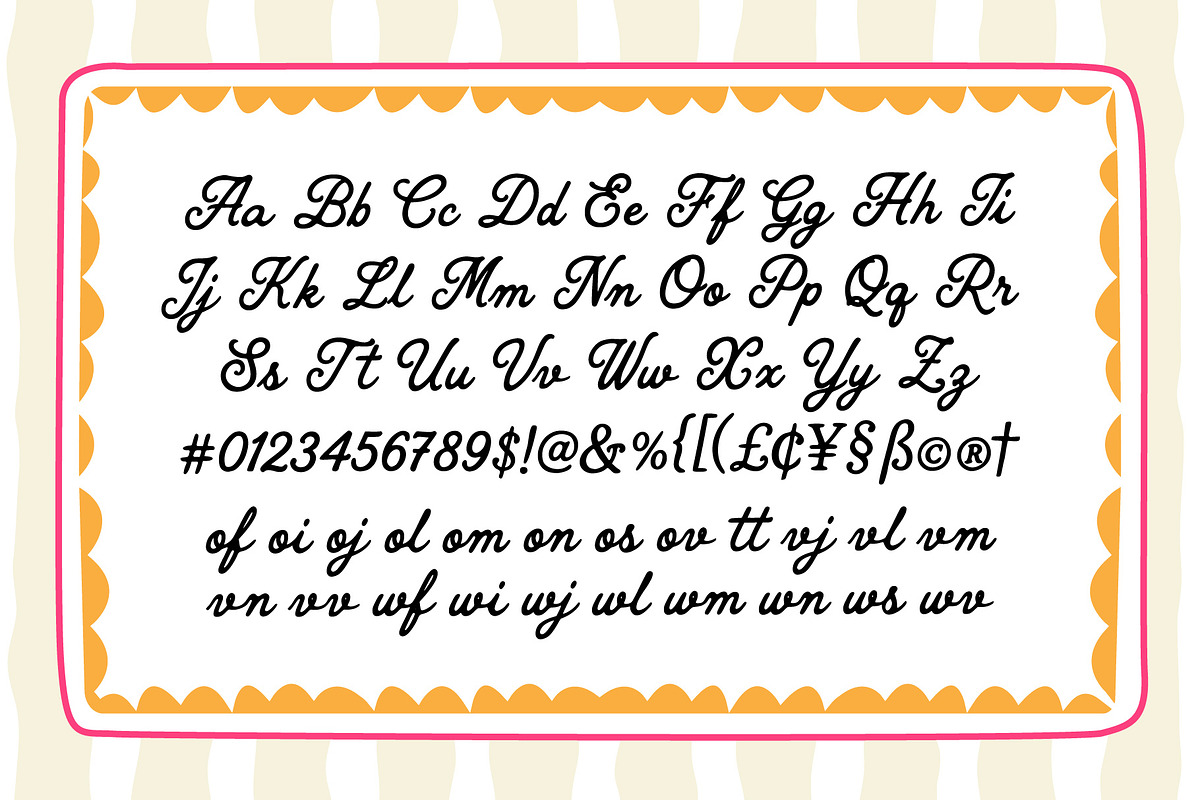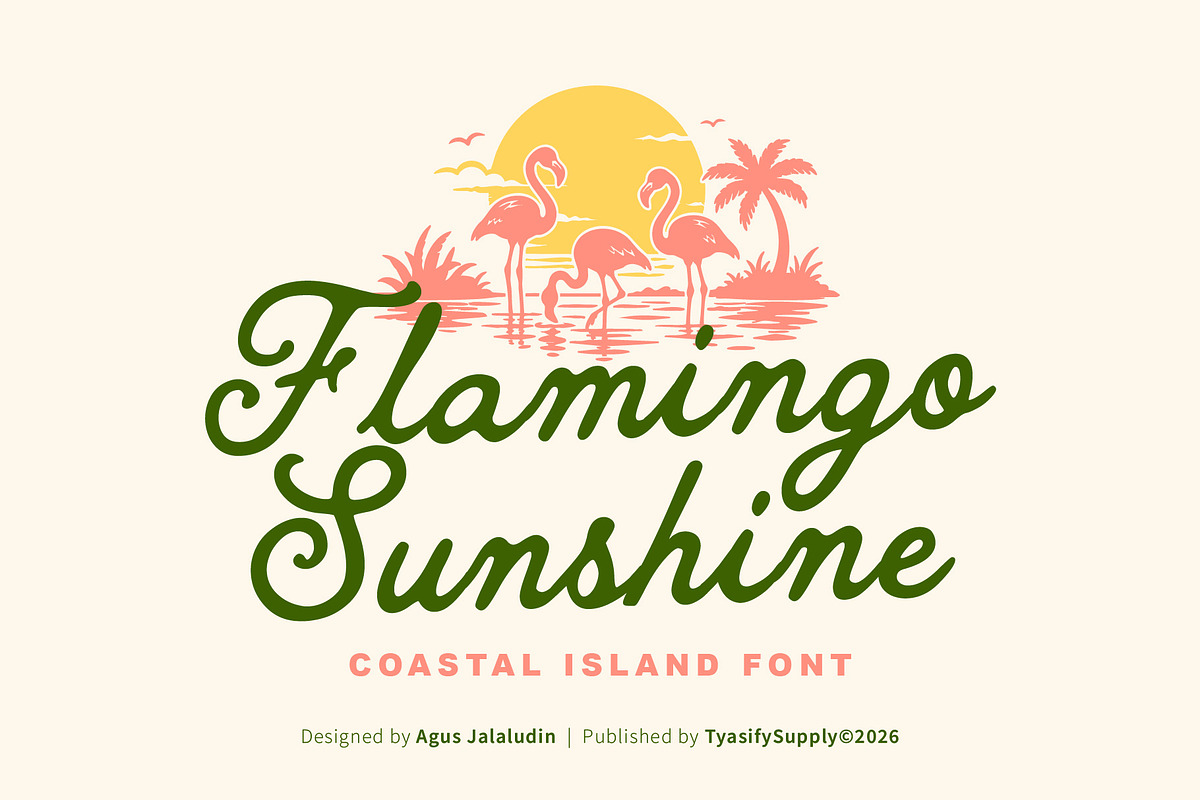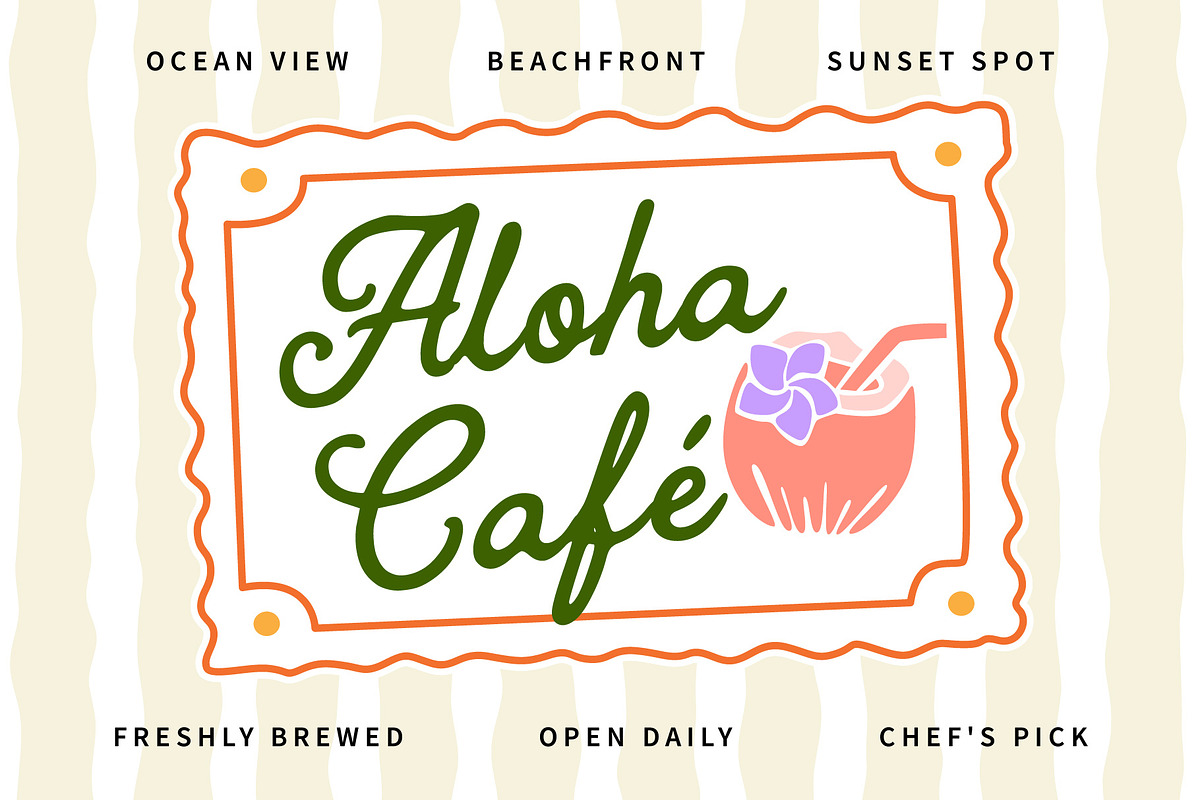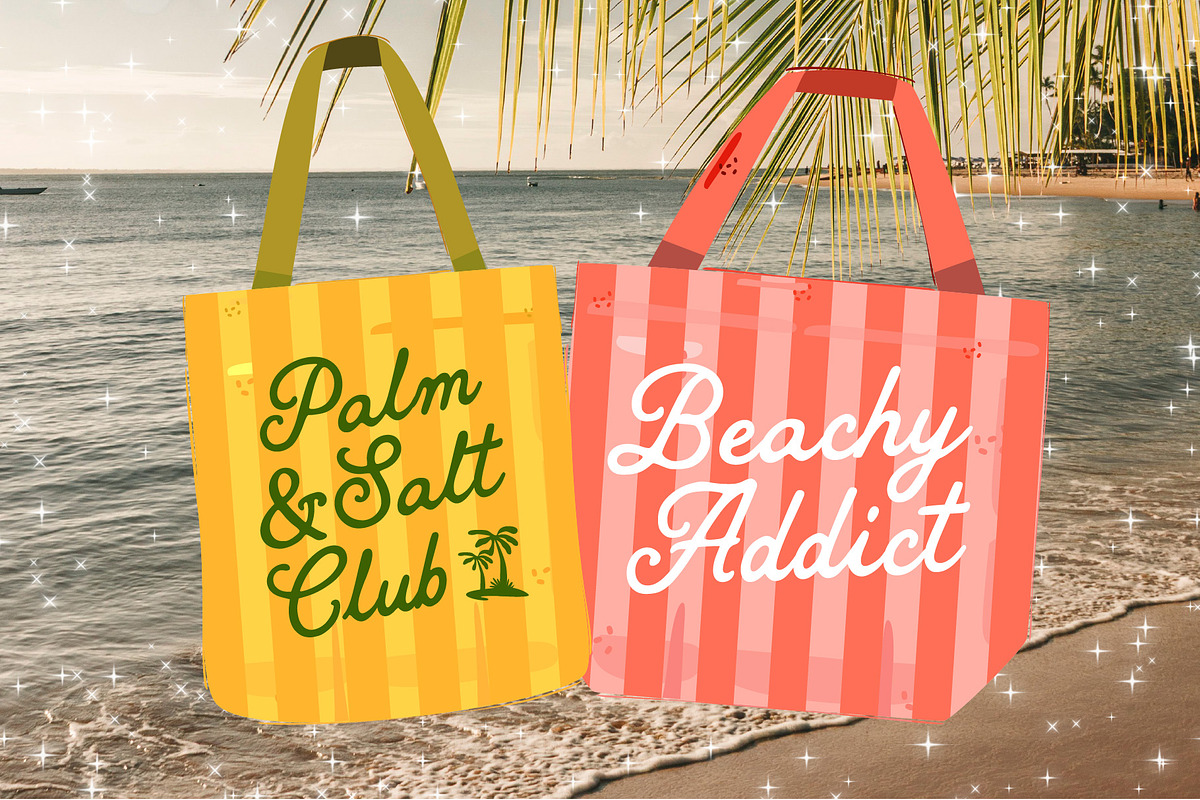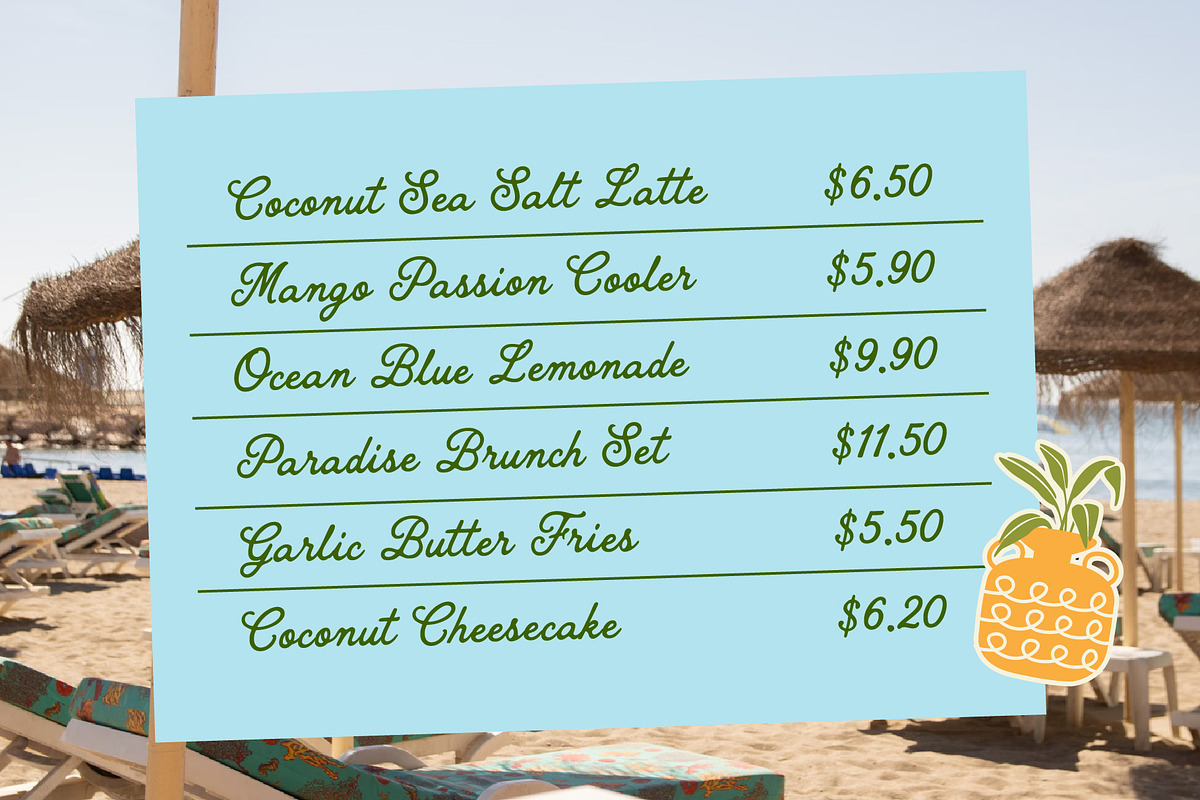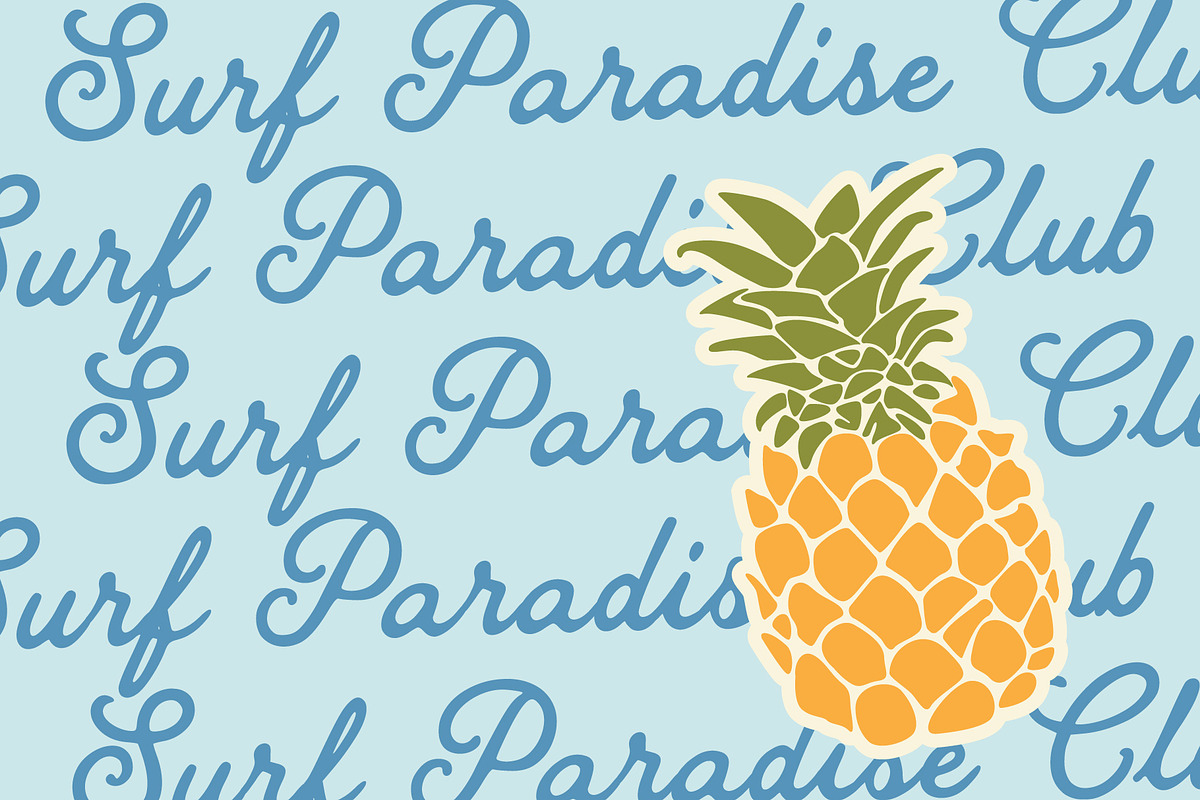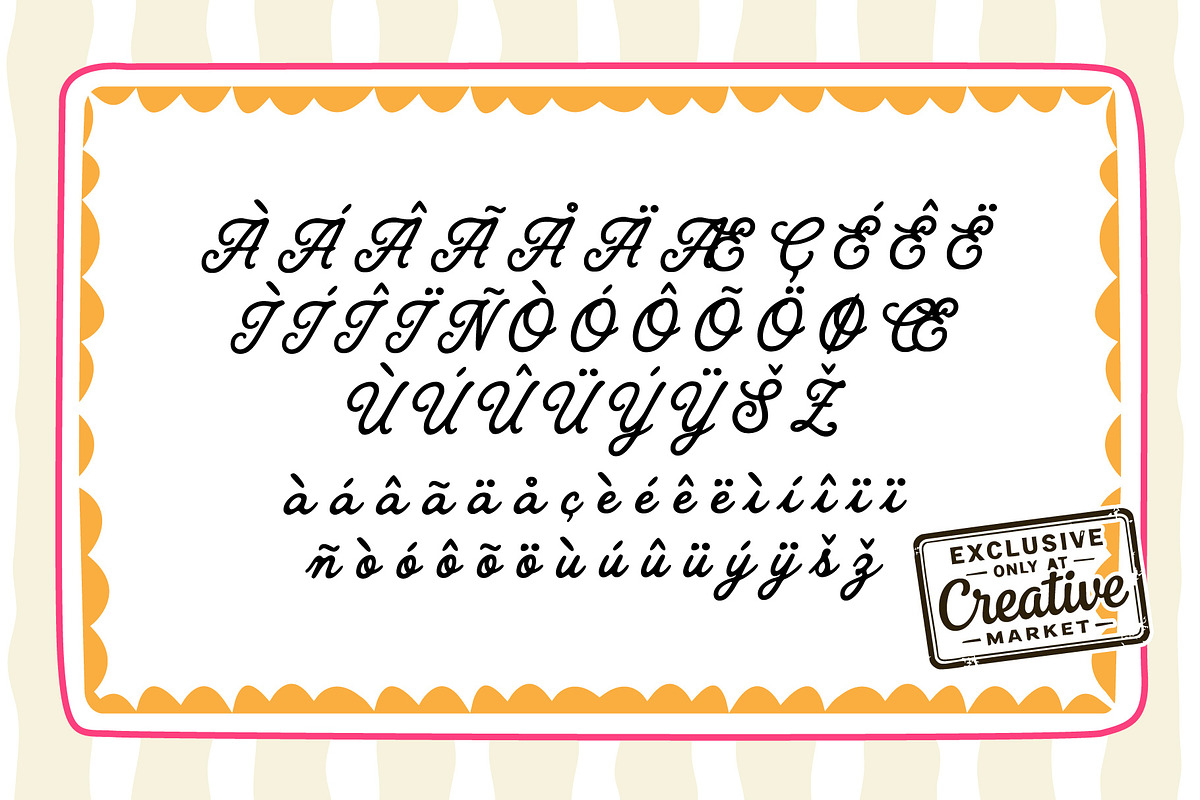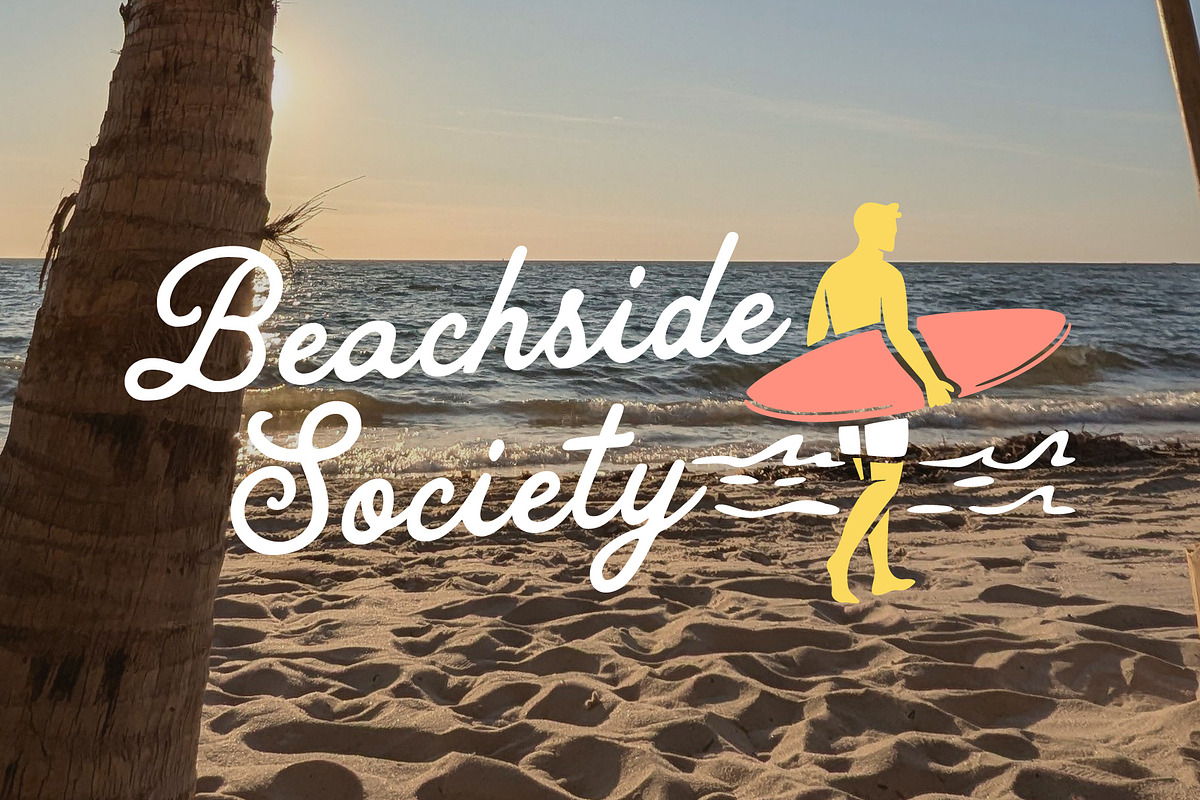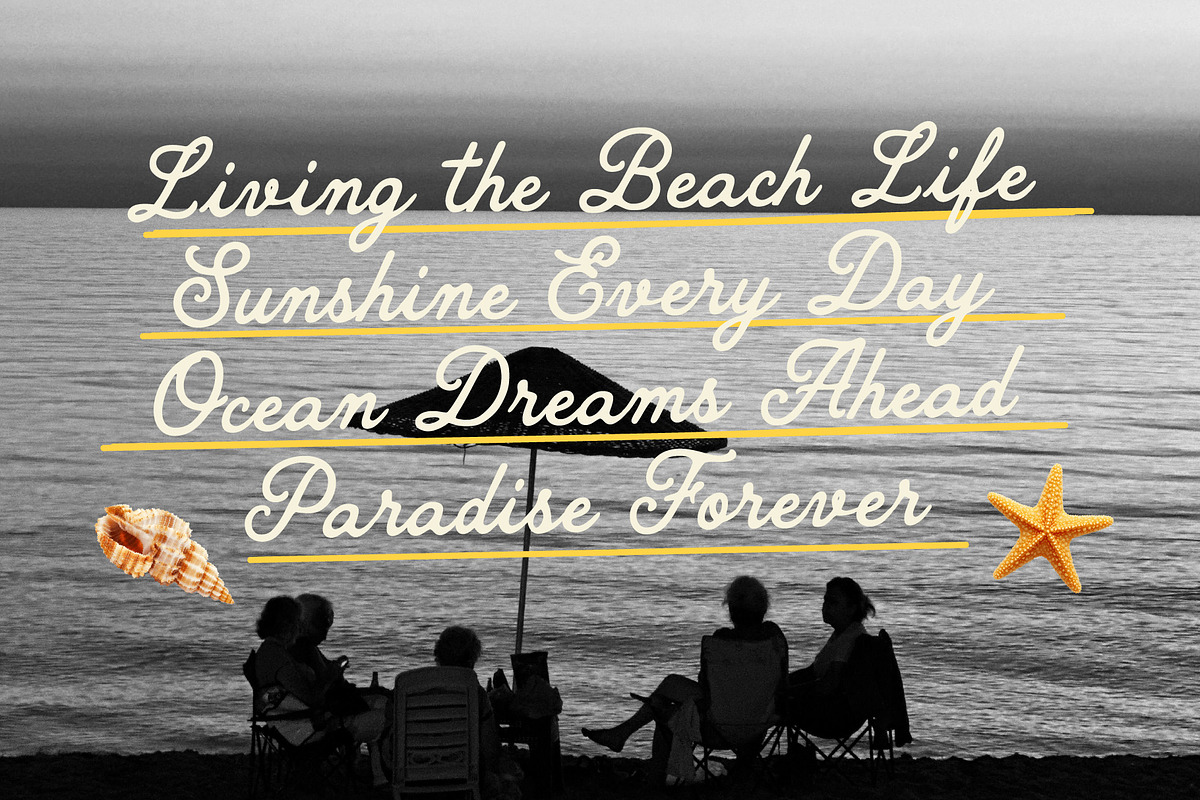
Flamingo Sunshine Coastal Font
Capture the ultimate tropical getaway with Flamingo Sunshine, a whimsical coastal script font designed to bring a warm, retro-beach personality to your creative projects. Inspired by golden hour sunsets, vintage surf clubs, and breezy oceanfront cafes, this font blends playful, curly hand-drawn strokes with a carefree summer soul.
Featuring a delightfully bouncy baseline and gracefully organic letterforms, Flamingo Sunshine captures the authentic, imperfect charm of natural handwriting. It feels relaxed, expressive, and effortlessly stylish perfect for designs that need a splash of tropical sunshine and a friendly, human touch.
Perfect For Whether you are designing beachfront cafe menus, retro surf apparel, coastal wedding invitations, summer tote bags, bohemian lifestyle branding, or dreamy vacation quotes, this font brings a vibrant island breeze directly to your canvas.